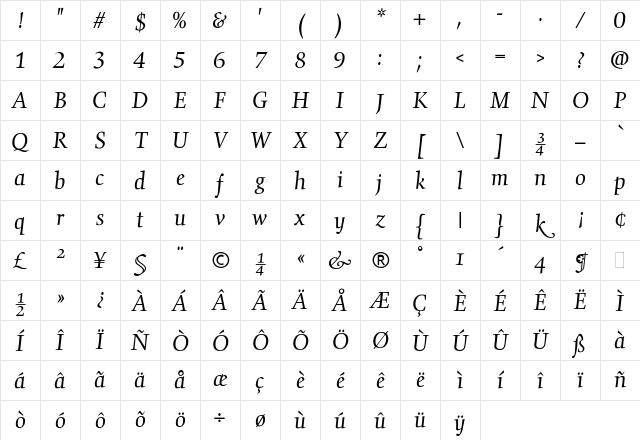
Complete GilgameshBook Italic glyph index. Displaying only characters natively supported by GilgameshBook Italic font.
GilgameshBook is a composed and adaptable typeface that performs quietly and consistently across a wide range of design contexts. The slanted form adds forward momentum and visual energy.